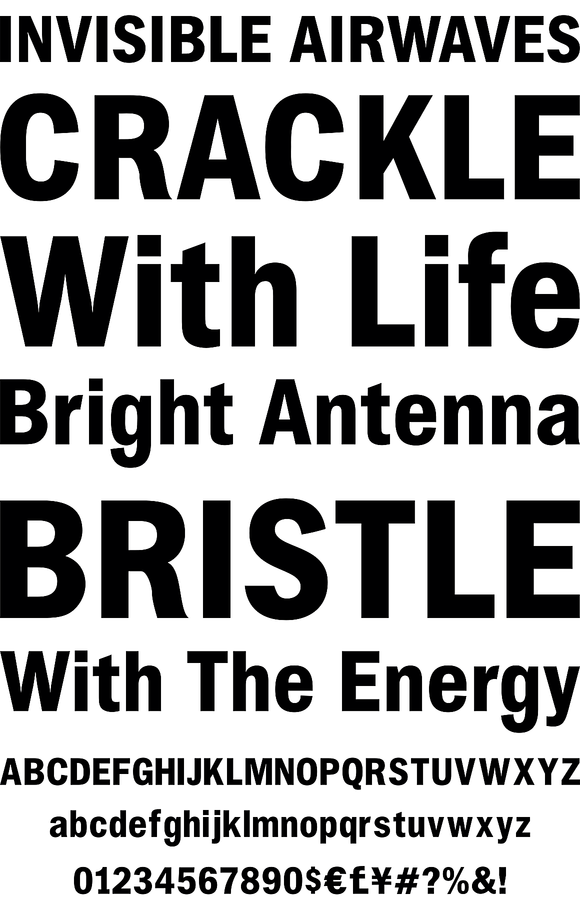
Chubbet
Foundry: Emboss Fonts
Chubbet (pr. Chub-bay) is a typeface meant for heavy duty applications. The regular weight starts off quite plump, then it expands inward until there is a minimal amount of positive space.